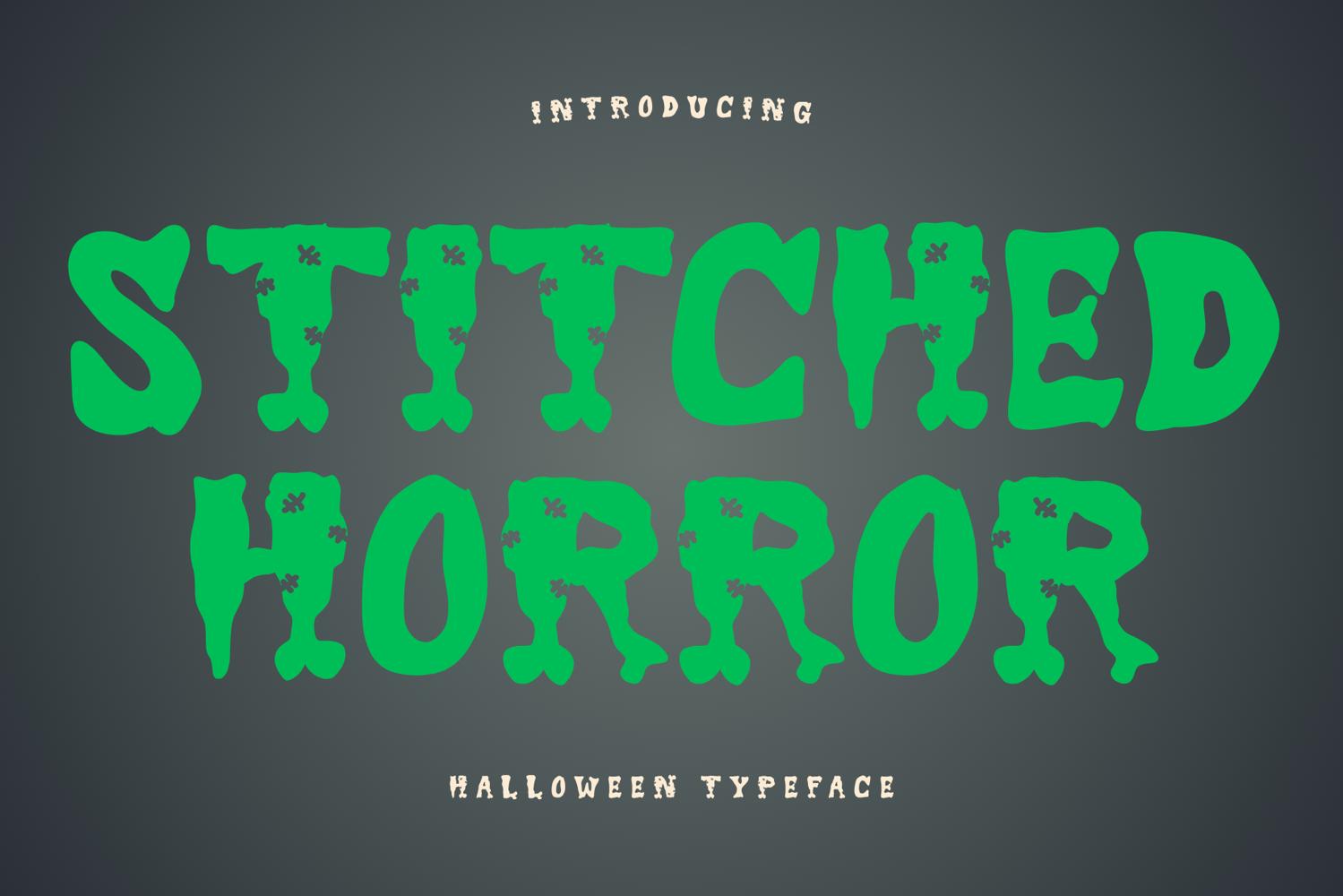
Stitched Horror is a Halloween decorative font
Stitched Horror
Stitched Horror is a Halloween decorative font. It embodies playfulness and authenticity and is the perfect choice for all your favorite projects, such as blog posts, logos, branding, ads, invitations, greeting cards, planners, photo albums, decorations, and more. Add it to any of your designs, and enjoy the results!